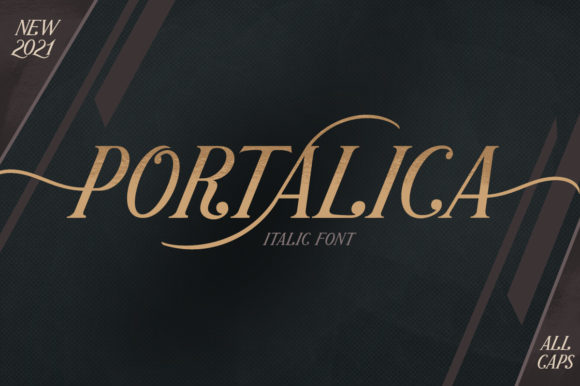
Embark on a typographic odyssey with Portalica Font, the modern and elegant serif masterpiece crafted by letterhend. This font family is not just a collection of letters; it's a gateway to a world of captivating designs and impactful communications. Let Portalica be your guide as you navigate the realm of corporate branding, web design, and print projects.
With Portalica, your words will transcend the ordinary and assume an air of sophistication. Its clean lines and graceful curves evoke a sense of timelessness, while its distinct character adds a touch of intrigue to your creations. Whether you're designing logos, brochures, or eye-catching headlines, Portalica will elevate your message and leave a lasting impression.
Harness the power of Portalica to craft annual reports that command attention, business cards that exude professionalism, and marketing materials that resonate with your audience. The possibilities are boundless, limited only by your imagination. Unleash your creativity and watch as Portalica transforms your designs into works of art.
Join the ranks of design visionaries who have discovered the allure of Portalica. Let its timeless beauty enhance your projects and captivate your audience. Embrace Portalica today and unlock a world of typographic possibilities.